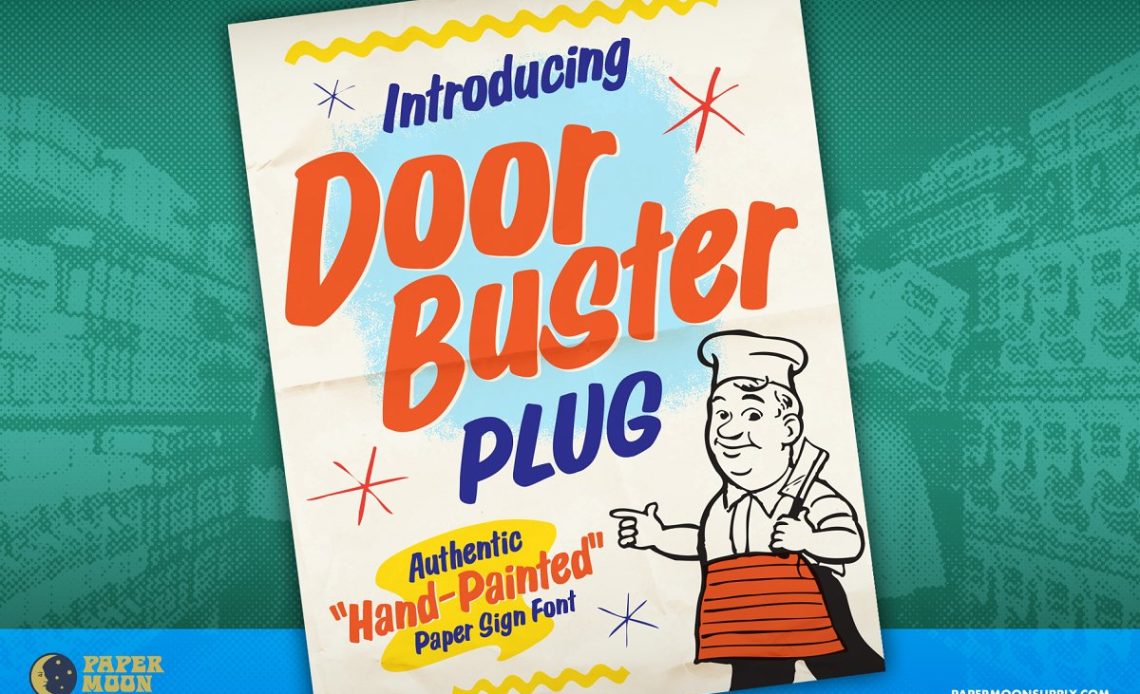
Introducing Doorbuster Plug Sign Painter Font, the ultimate font collection that will elevate your designs to new heights! Created by the talented Scott Banks, this font is inspired by vintage hand-painted paper signs, adding a touch of nostalgia and authenticity to your projects.
The Doorbuster collection takes its cues from the retro hand-painted paper signs that adorned grocery stores from the 1920s to the 1970s. With meticulous attention to detail, each font in this collection is hand-drawn, capturing the spacing and uneven baseline found in vintage sign painting. The result? A truly organic and hand-lettered look that is sure to captivate your audience.
But that's not all! Doorbuster Plug also features a vast array of ligatures and contextual alternates, ensuring that no two letters look the same when paired together. This attention to detail gives your designs a unique and custom feel, setting them apart from the crowd.
Whether you're working on a vintage-inspired project or a contemporary marketing campaign, Doorbuster Plug is the font for you. Its timeless appeal makes it perfect for branding, packaging, and marketing materials. And with a range of samples included in the thumbnails, you can see for yourself the endless possibilities this font brings to your designs.
About the designer, Scott Banks, he is an award-winning illustrator and designer who knows the importance of a retro script that truly embodies the spirit of the past. With Doorbuster Plug, he has created a font that will transport you to a bygone era while giving your designs a modern twist.